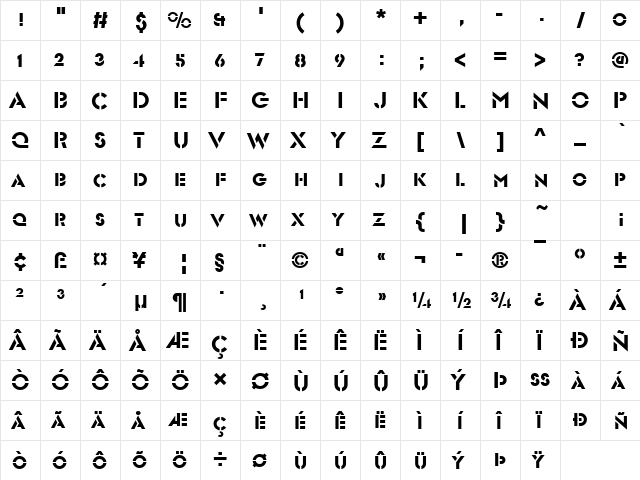
Glaser Becker Stencil Caps Regular
Design Context for Glaser Becker Stencil Caps Typeface
Glaser Becker Stencil Caps has the rough pragmatism of spray-painted stencil signage, adding a raw, street-level authenticity to designs.
Ideal for industrial branding, streetwear, military-adjacent aesthetics, and urban signage projects.
Pro Tip: Pair Glaser Becker Stencil Caps with raw, utilitarian design elements — exposed concrete textures, flat colour, and minimal ornamentation suit it well.